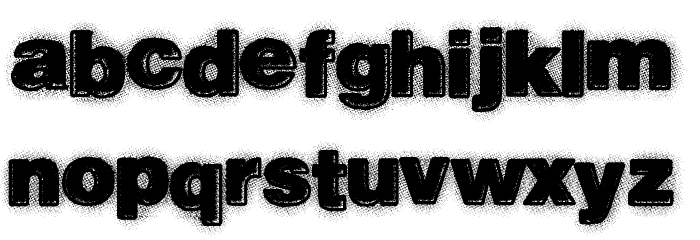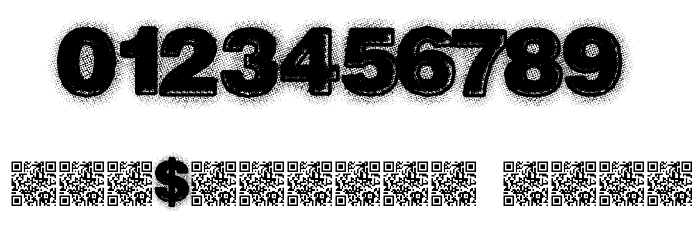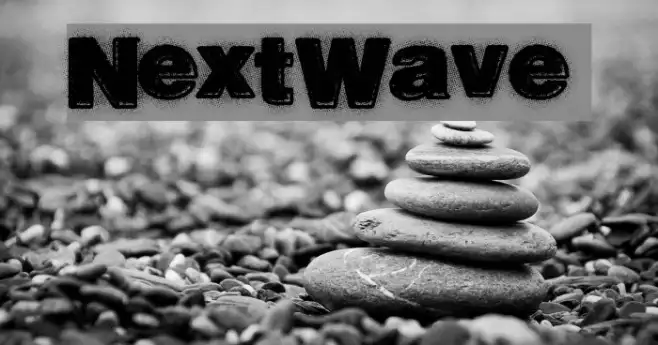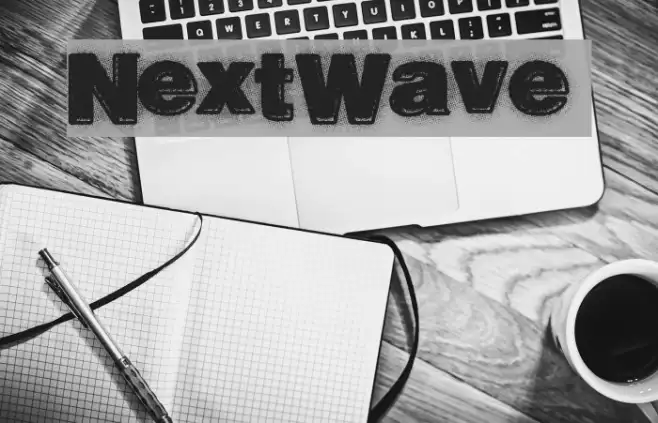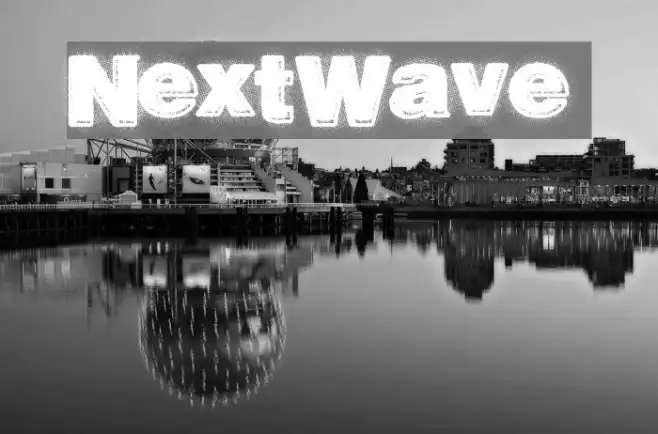
NextWave Font
This font features bold, blocky characters with a strong presence, ideal for making a statement. The letters are uniformly thick, with a slight shadow effect that adds depth and dimension. The uppercase and lowercase letters maintain a consistent style, ensuring readability and cohesion. The numerals are equally bold, matching the overall robust aesthetic. Special characters are included, maintaining the same boldness and clarity. The font's design is straightforward yet impactful, making it suitable for attention-grabbing headlines or titles.
A bold, blocky font with a shadow effect, perfect for impactful headlines.
- Proposed Projects: Ideal for posters, banners, advertising, and any project requiring a strong visual impact.